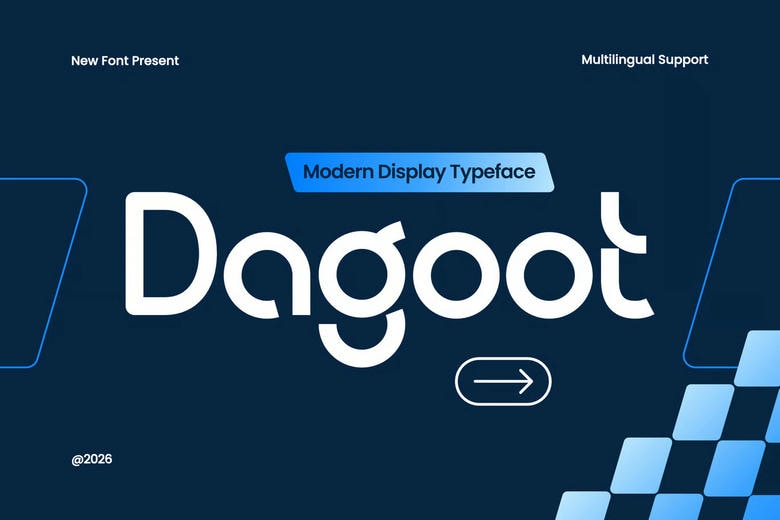
Dagoot Font
Dagoot Font is a contemporary rounded tech display typeface, created to be used in digital branding and futuristic visual systems, with clean geometric curves, smooth terminals, and balanced proportions, which form a smooth and progressive typographic style.
The typeface has a contemporary and innovative feel, which is ideal in technology-oriented settings like startup branding, digital products, app interfaces, and creative technology campaigns. Its curvy geometric form makes the characters look friendly and at the same time precise, which makes the text feel friendly and very organized.
Dagoot is particularly effective in headlines, UI titles, social media graphics, posters, and digital presentations. The forms are smooth and futuristic and can be read and structured in modern layouts. Dagoot supports 67 languages with multilingualism, enabling designers to create cohesive branding of international technology projects and digital platforms.
Dagoot is created to support designers and creative teams that are creating modern digital experiences. This typeface provides a clear and futuristic voice whether it is used in app UI headers, tech branding, gaming interfaces, digital posters, or startup presentations.
Its curvy form provides layouts with a modern and clean look, which assists brands to convey innovation and clarity. Technology firms and SaaS solutions to esports graphics and contemporary editorial layouts, Dagoot assists in developing typography that is organized, assertive, and appealing to the eye.